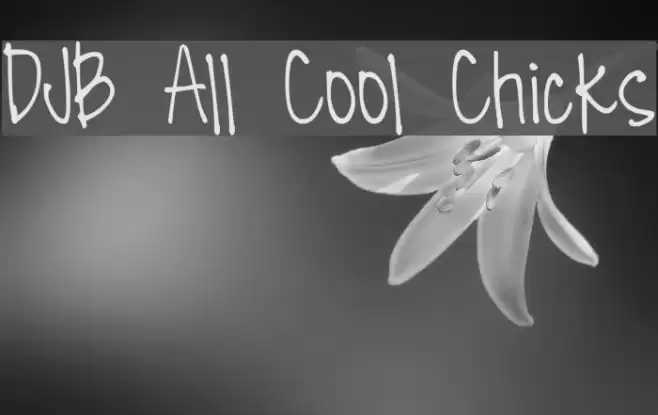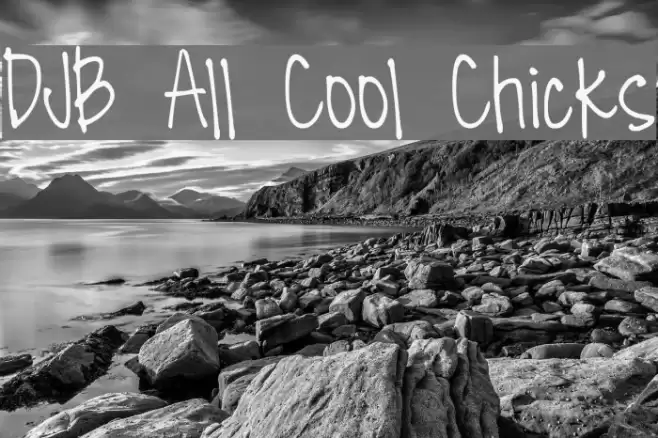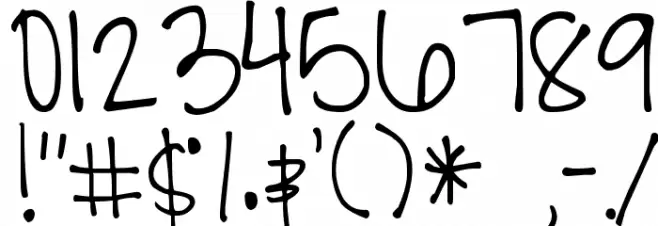
DJB All Cool Chicks Font
DJB All Cool Chicks Description
This playful and casual handwritten font exudes a youthful and energetic vibe. The letters are slightly irregular, giving it an authentic, hand-drawn appearance. The strokes are consistent in width, providing a uniform look across all characters. The uppercase and lowercase letters maintain a cohesive style, with rounded edges and a slight tilt that adds to its informal charm. The numerals and special characters are crafted with the same playful touch, making them blend seamlessly with the alphabet. This font is perfect for projects that require a personal and approachable feel.
A playful, handwritten font with a youthful and energetic vibe from Uncategorized fonts.
- Proposed Projects: Ideal for greeting cards, children's books, casual invitations, and playful branding.
- Overall Style: Casual, Playful
- Use Case: Headlines, Informal text, Branding